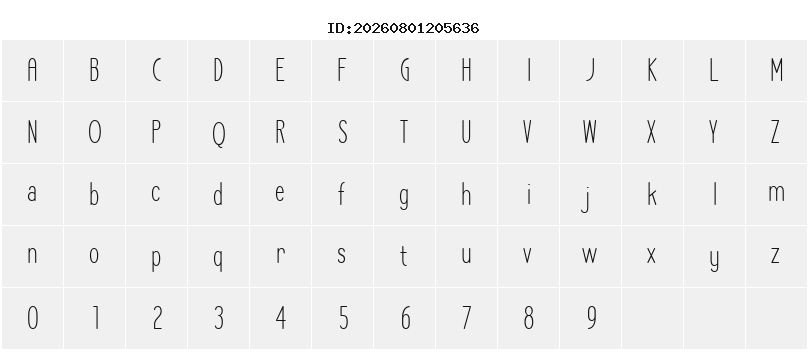
• Font Name: LA Headlights BTN Cond Lt
• Full Font Name: LA Headlights BTN Cond Lt
About LA Headlights BTN Cond Lt.ttf
LA Headlights BTN Cond Lt.ttf is a modern, elegant sans-serif font designed for ultimate readability and visual harmony. Perfect for branding, headlines, web design, and print materials.